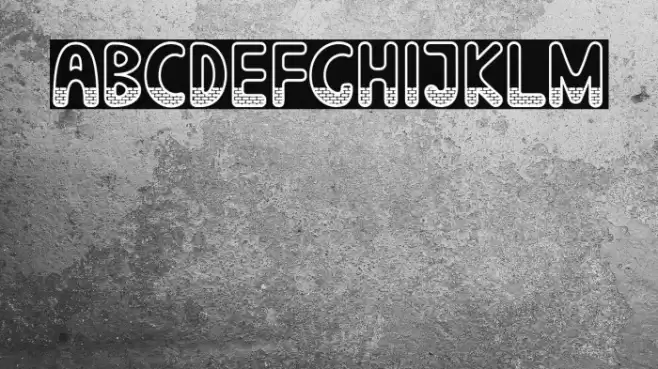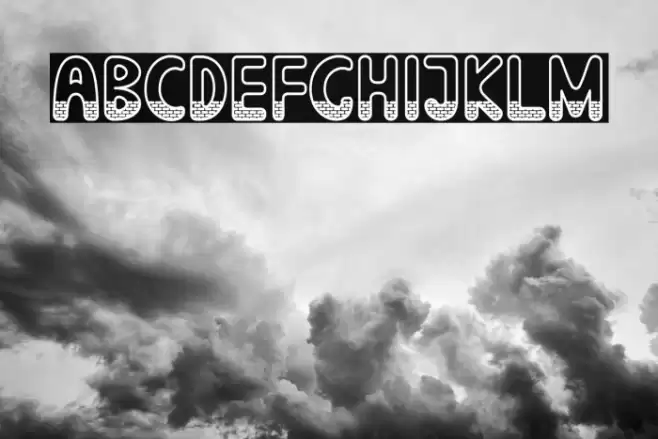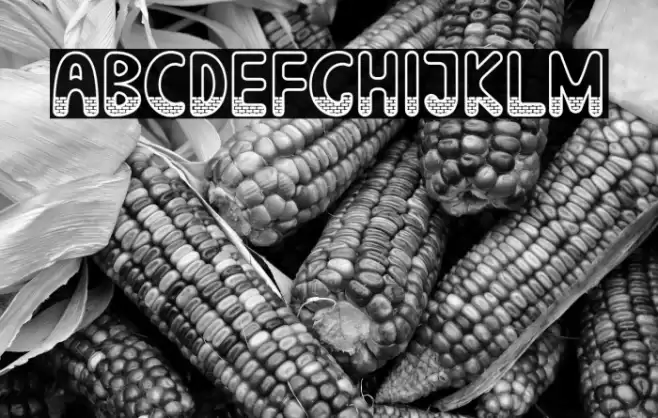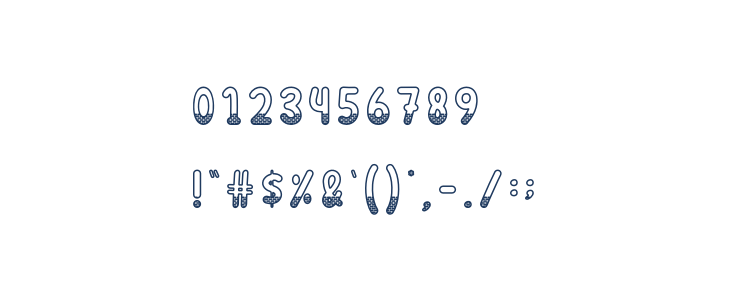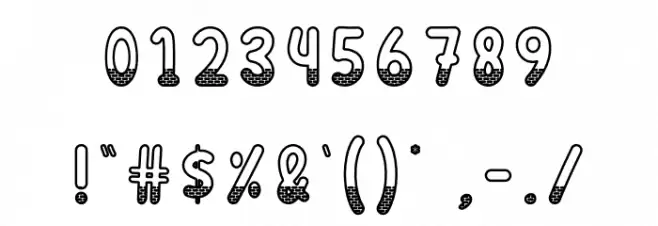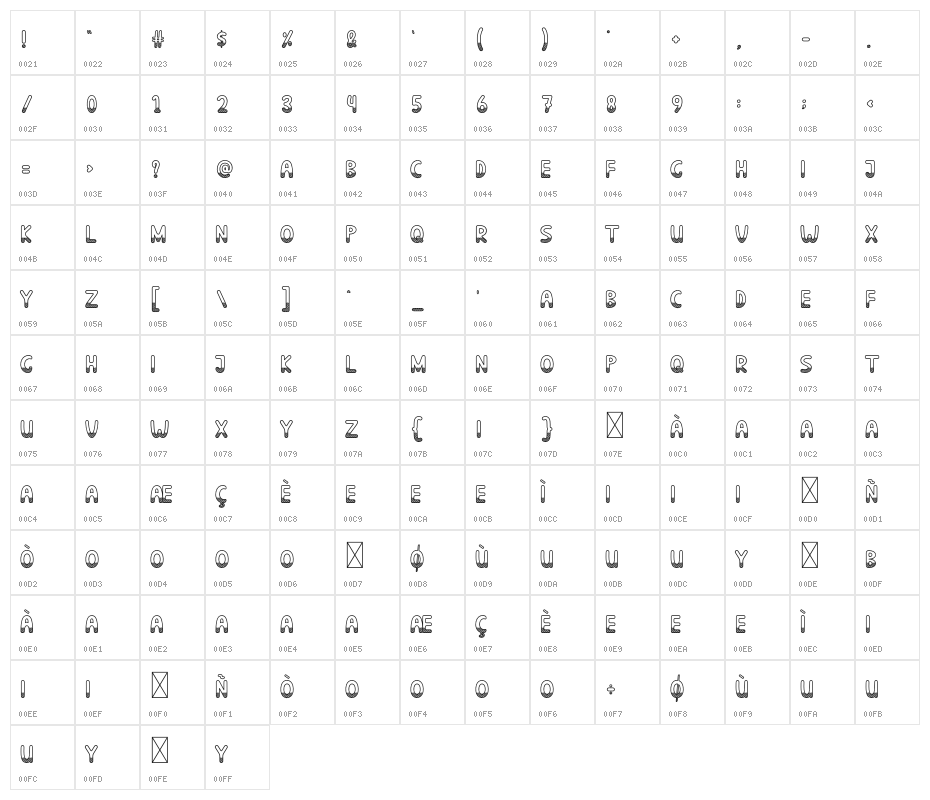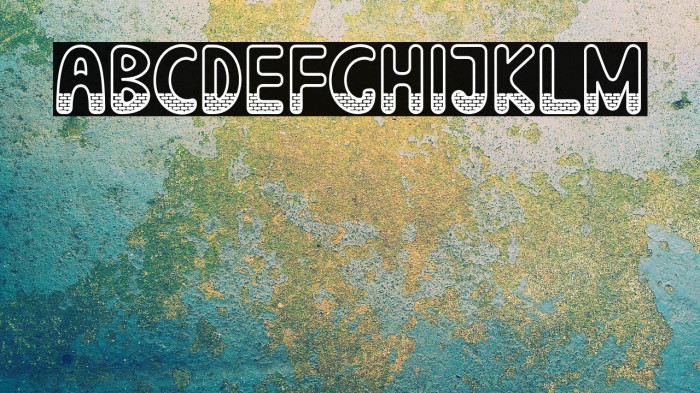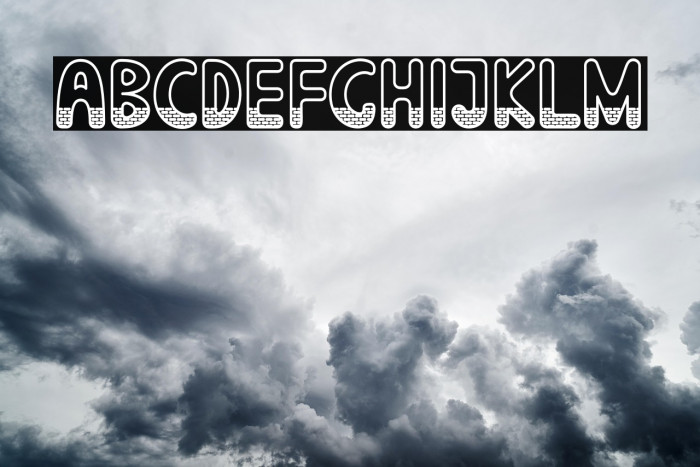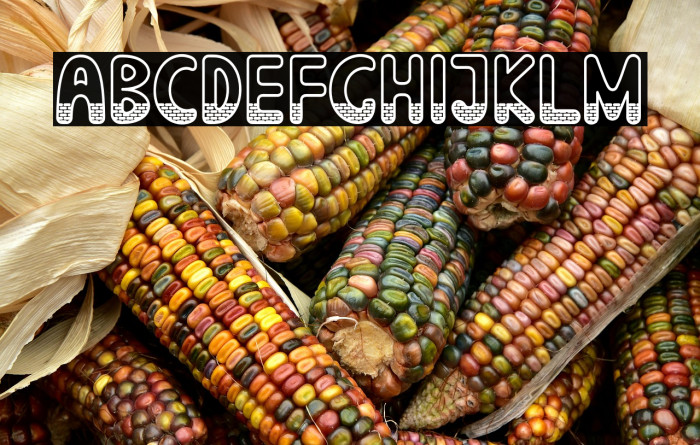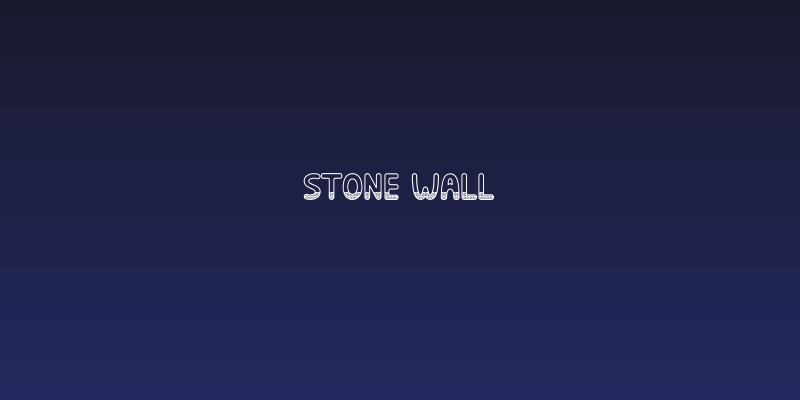
Stone Wall Font
Stone Wall Description
This font features a playful and decorative style with a unique stone-like texture filling each character. The letters are bold and rounded, giving them a friendly and approachable appearance. The texture adds depth and interest, making it stand out for creative projects. The characters are evenly spaced, ensuring readability while maintaining a distinct visual appeal. This font is ideal for designs that require a fun and engaging look, such as children's books, posters, or themed event invitations.
A playful, textured font with bold, rounded characters and a stone-like appearance from Uncategorized fonts.
- Font: Stone Wall